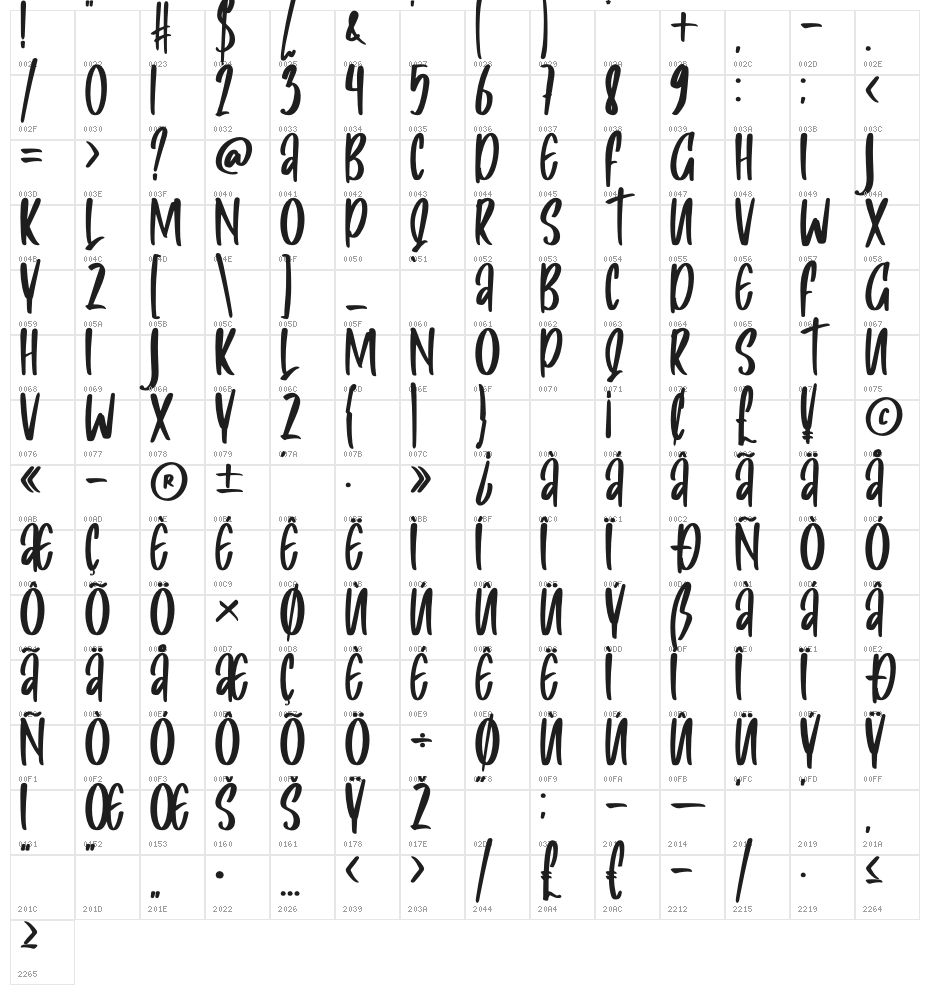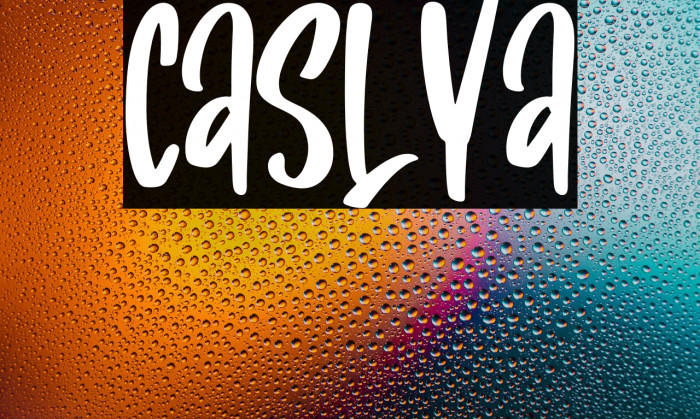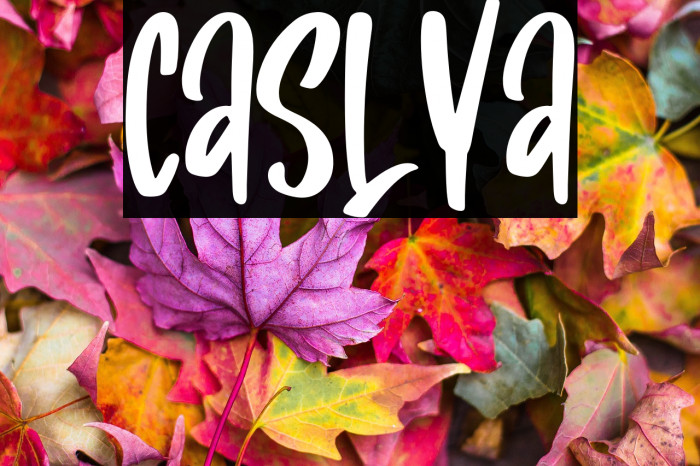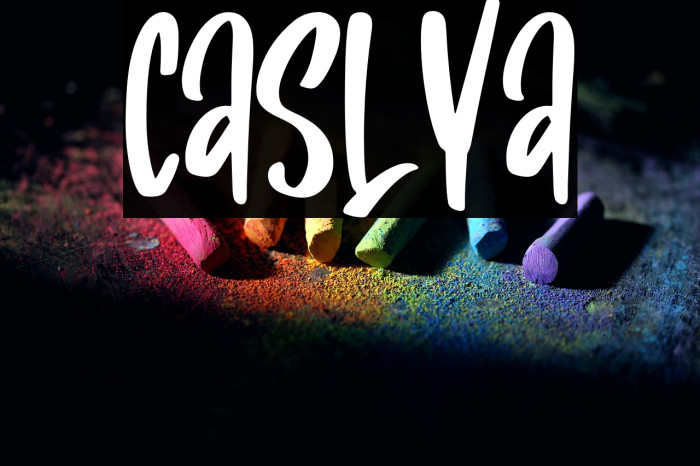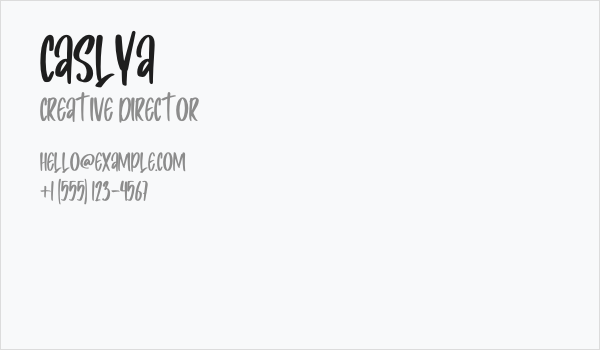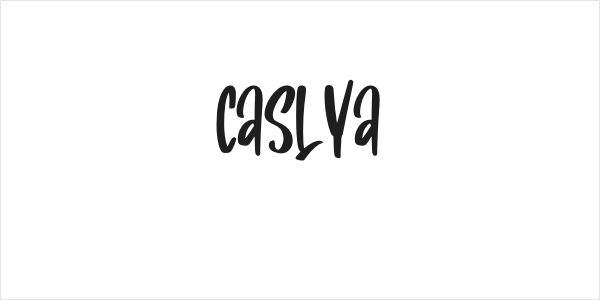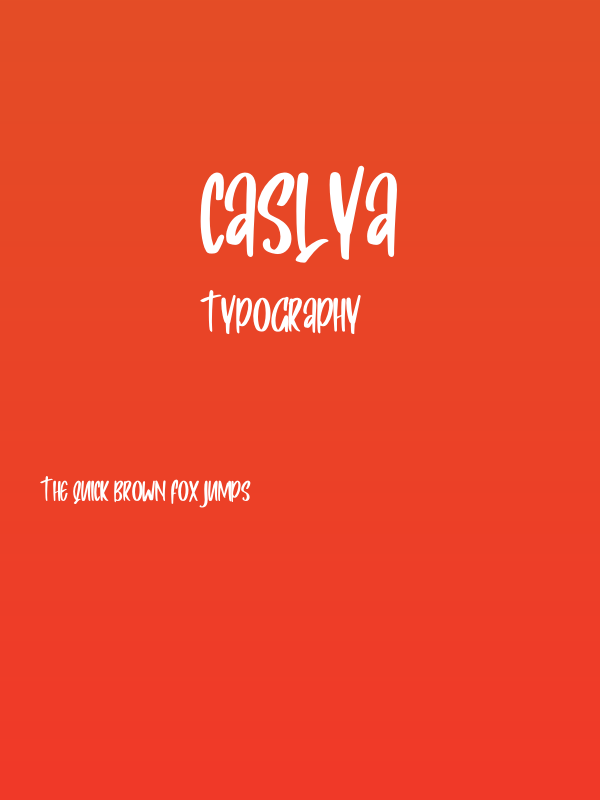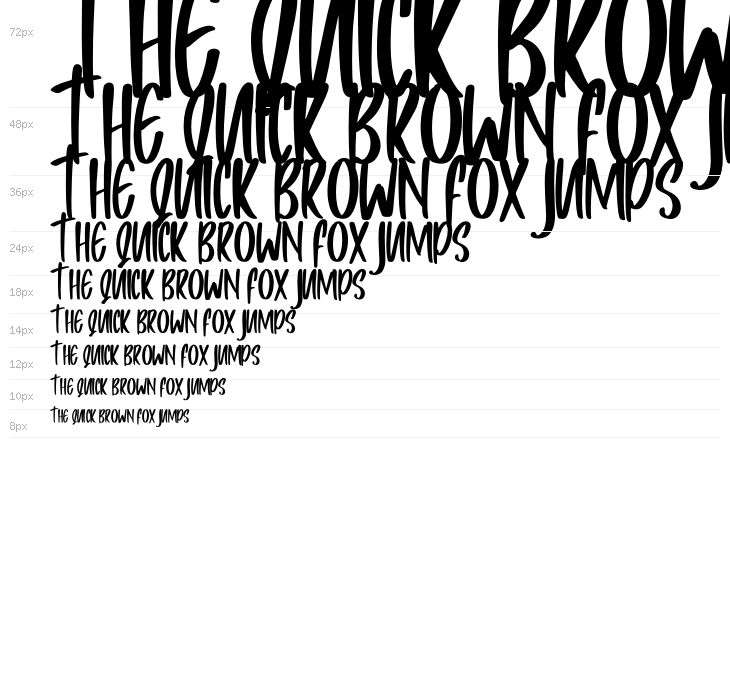
Caslya Font
Caslya Description
A bold, handwritten font with a playful and energetic style, featuring tall, narrow characters with a slight slant.
| Proposed Projects | Posters, branding, social media graphics. |